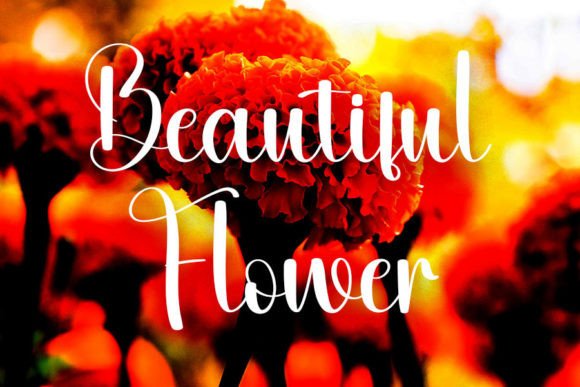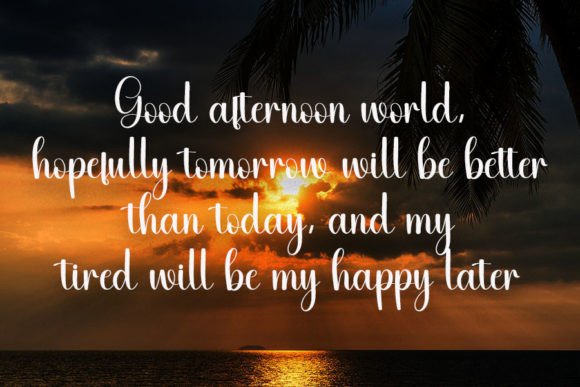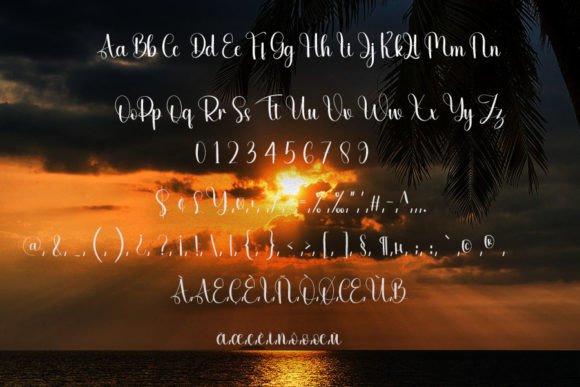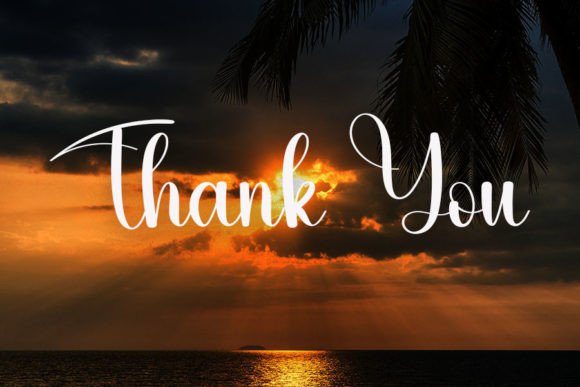
Right Font
About Right Font
Right Font is a simple handwritten script that blends friendliness with casual charm. With clean strokes and natural flow, this typeface adds warmth and originality to both personal and professional projects. Because of its versatile design, Right Font is perfect for crafts, greeting cards, invitations, posters, logos, and branding.
A Simple Handwritten Typeface with Friendly Energy
Handwritten fonts are admired for their authentic character, and Right Font highlights this quality with its approachable design. Its smooth rhythm makes text easy to read, while its natural strokes add personality. Moreover, its adaptable style works seamlessly across both modern and traditional layouts. As a result, this script is a reliable choice for creatives who want elegance with simplicity.
For stationery and personal projects, Right Font is an excellent companion. For example, it can transform a wedding invitation into a timeless keepsake. In addition, it works beautifully for birthday greetings, thank-you notes, and seasonal cards. Because of its casual elegance, every project feels heartfelt, stylish, and unique.
A Script Typeface for Logos and Branding
Brands and creatives who want to showcase a friendly identity can rely on Right Font. It adds warmth and individuality to logos, product labels, and packaging. Furthermore, on social media, it helps posts, stories, and promotional graphics stand out with personality. When paired with minimalist sans serif typefaces, Right Font balances professionalism with creativity.
Another advantage of Right Font is its adaptability across mediums. In print, it looks excellent on brochures, posters, magazines, and merchandise. Digitally, it enhances websites, blogs, and presentations with a handwritten touch. Since it maintains clarity at both small and large sizes, this script remains reliable for a wide range of creative uses.